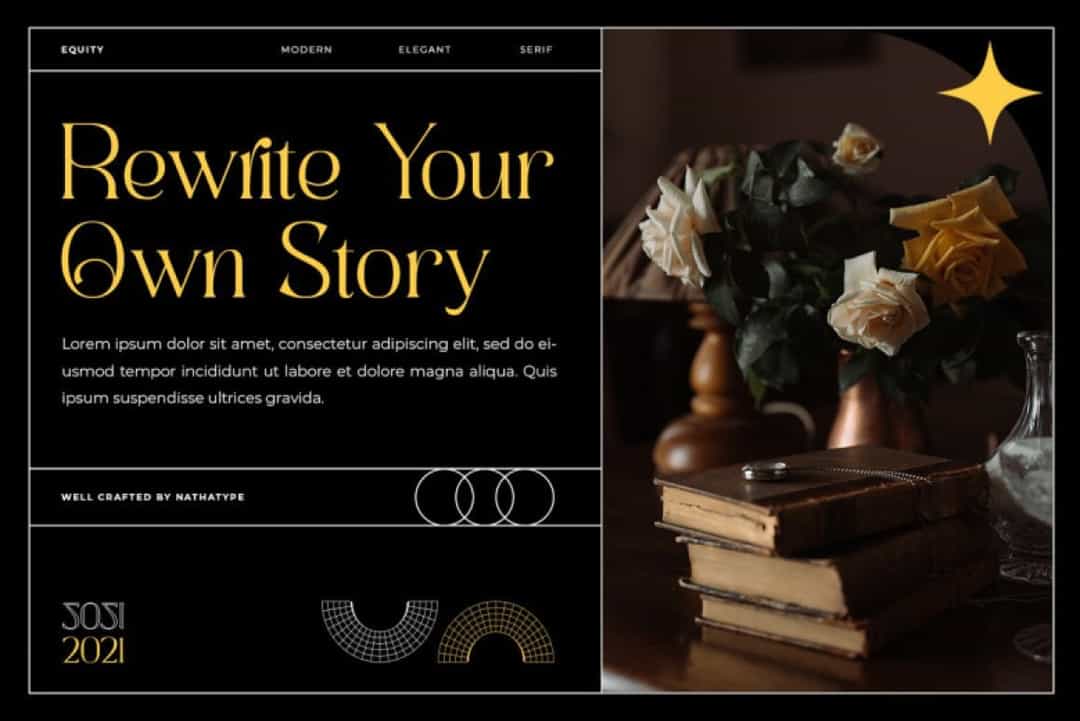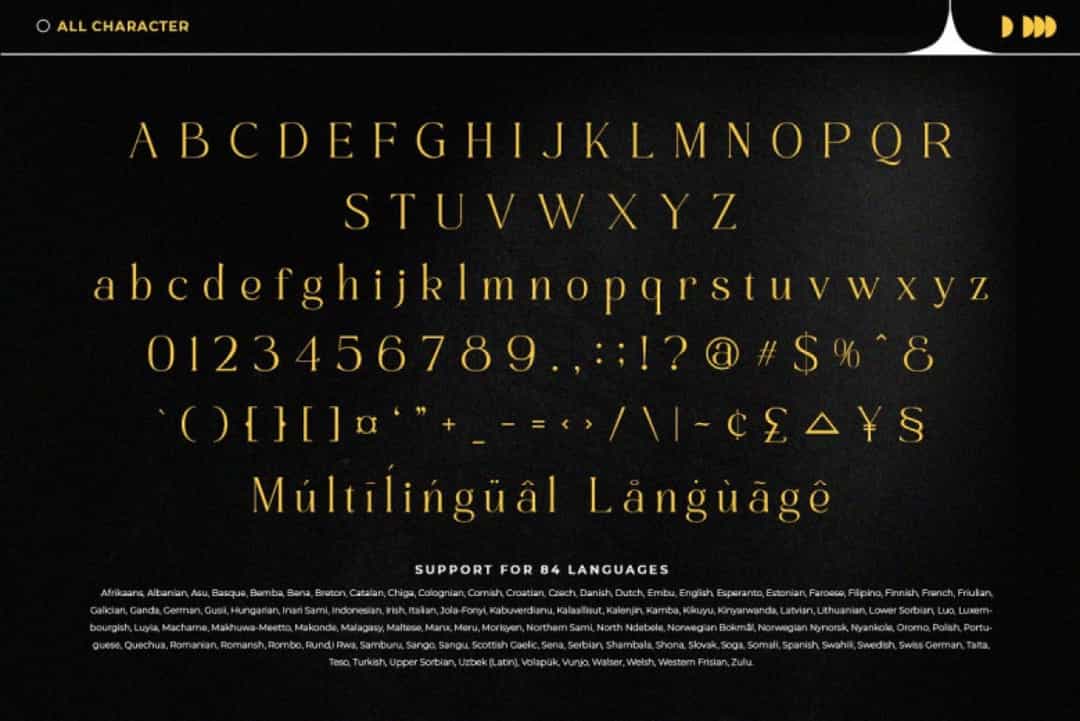
EQuity is a sophisticated yet genuine serif font designed specifically for modern usage. Suitable for logos, branding wedding stationery, invitations photography gift ideas packaging products also it works as watermark and quotations ensuring your Branding design does not contain whimsical logos that lack sophistication. This font produces top quality sophisticated refined Branding Designs instead.